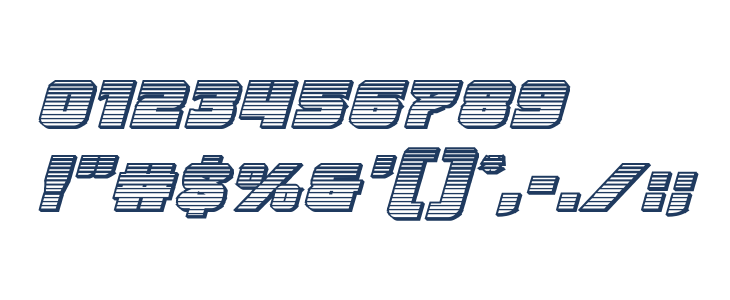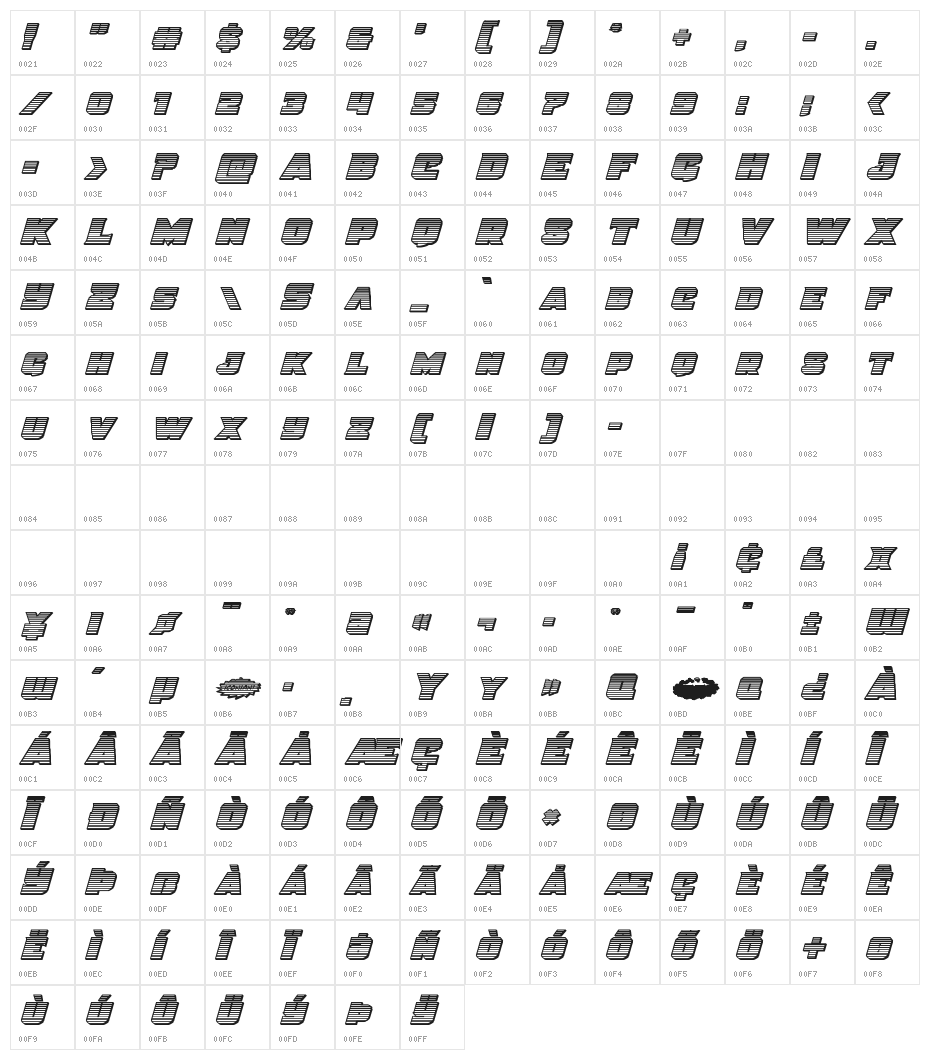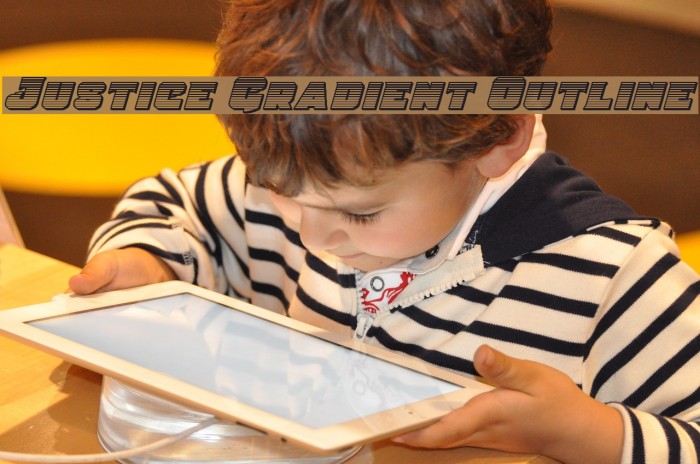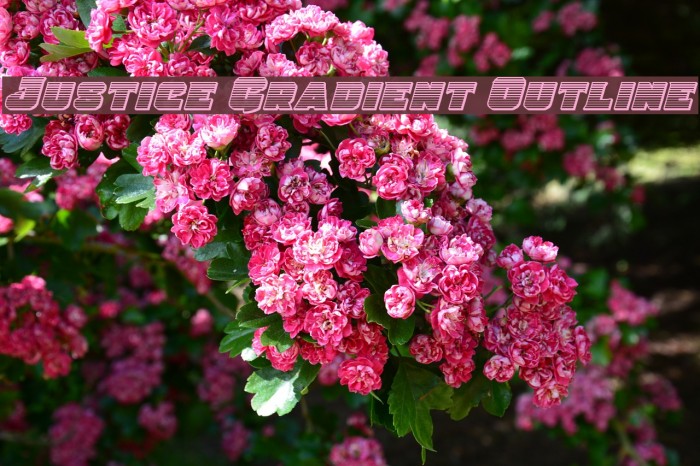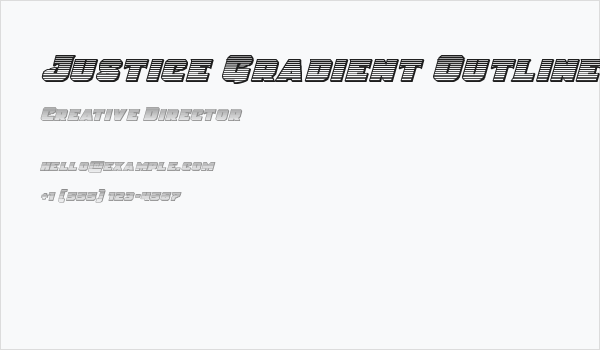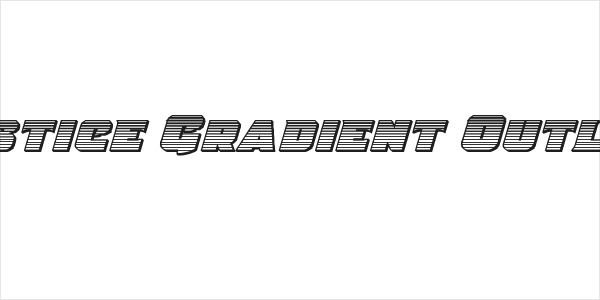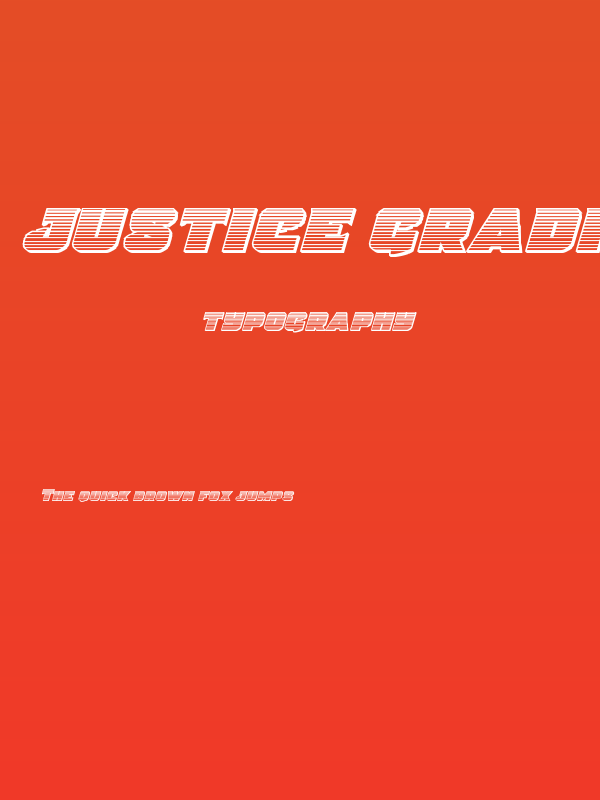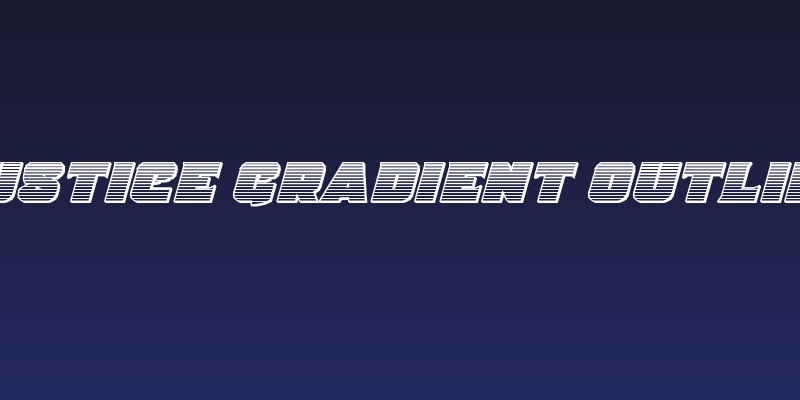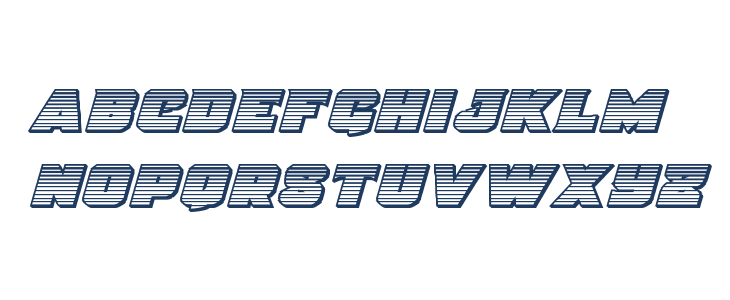
Justice Gradient Outline Font
Justice Gradient Outline Description
This font features a bold, dynamic style with a distinct outline and gradient effect that gives it a three-dimensional appearance. The characters are uppercase and lowercase, with numerals and a variety of special characters. Each letter is designed with horizontal lines that create a sense of depth and movement, making it stand out in any design. The font's structure is robust, with wide strokes and a consistent pattern that enhances its visual impact. It's ideal for projects that require a modern and edgy look, such as posters, headlines, and branding materials.
| Proposed Projects | Ideal for posters, headlines, branding, and any design needing a modern, edgy look. |